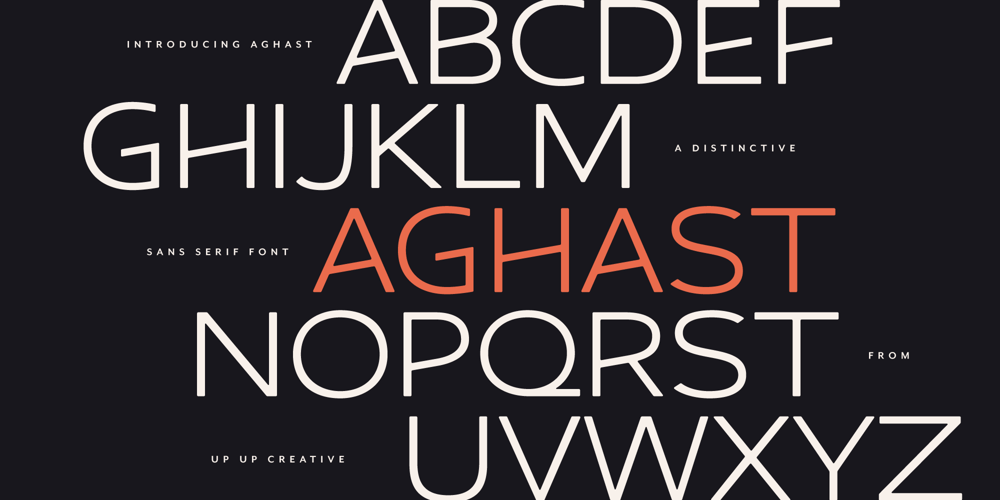
Aghast
Aghast font
Aghast Font Family was designed by Julie Green and published by Up Up Creative. Aghast contains 2 styles and family package options. Aghast is a sans serif that balances minimalism with a distinctive personality, offering over 700 glyphs and more than 100 ligatures. Its three stylistic sets—slanting up, neutral, and slanting down—let you control the rhythm and feel of your typography. Available in both regular and outline styles, Aghast is a versatile choice for editorial design, branding, logos, marketing, publishing, book covers, and even modern wedding and stationery design.